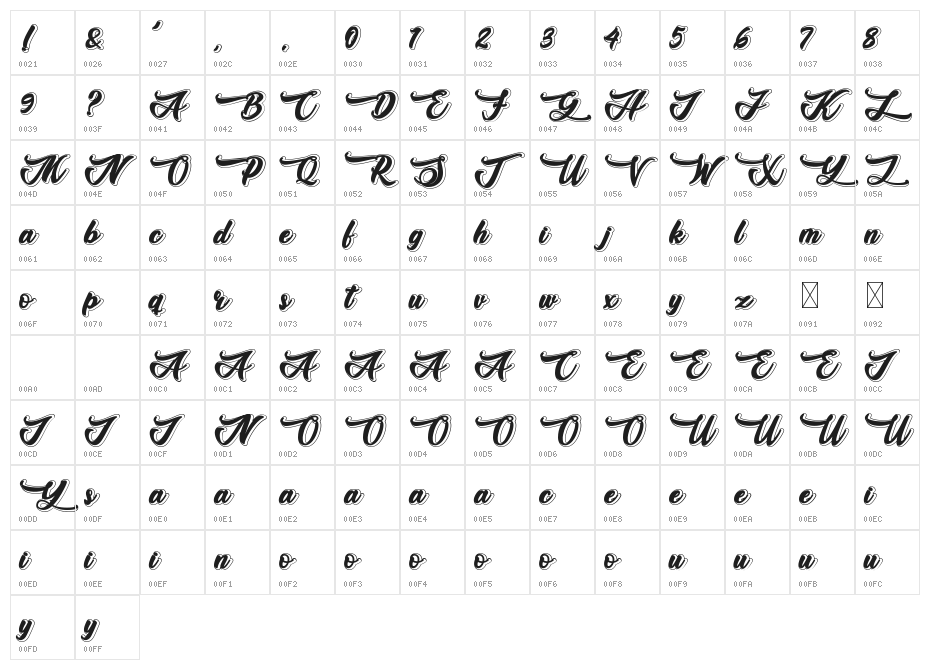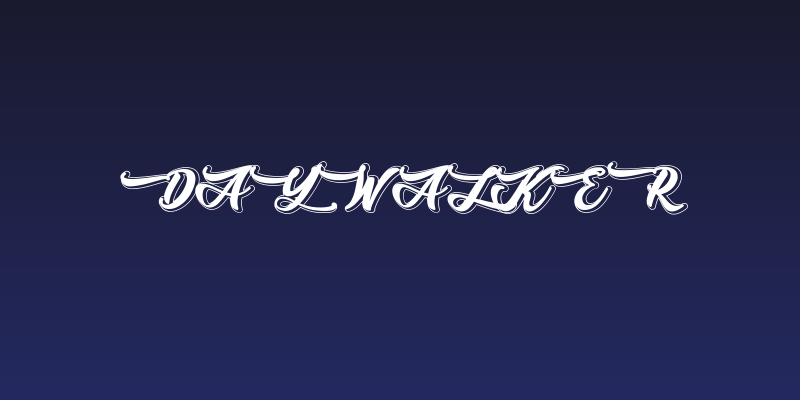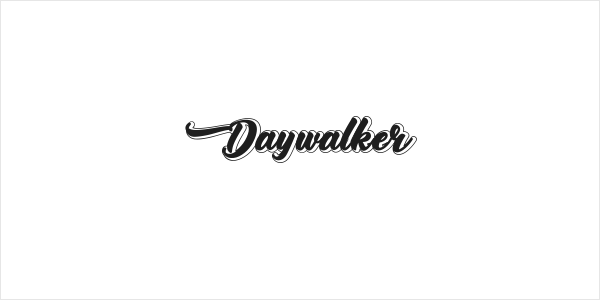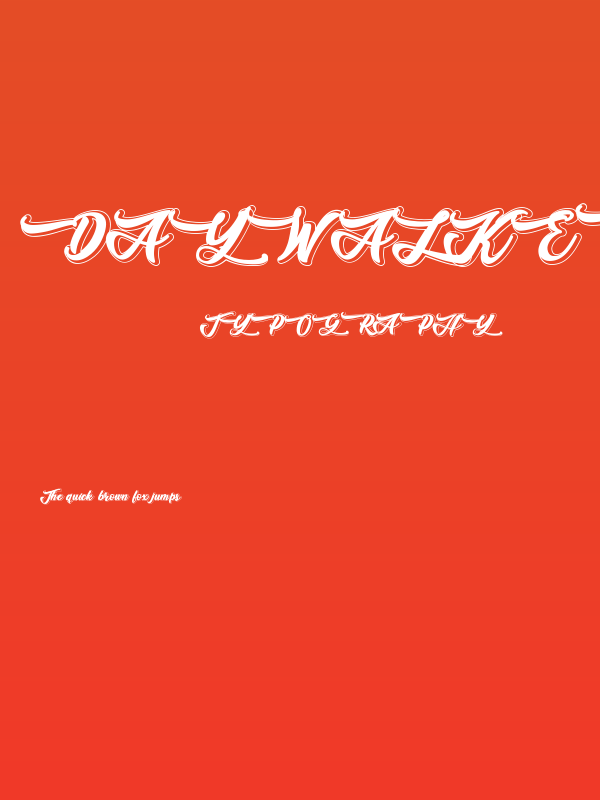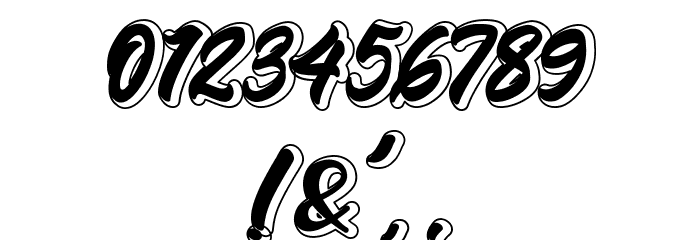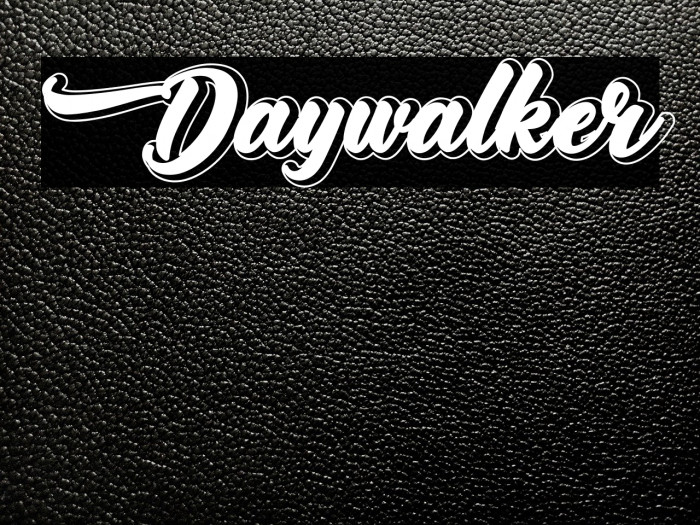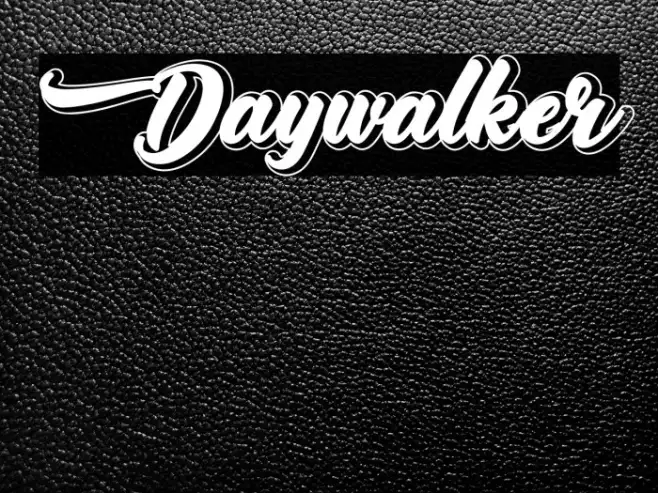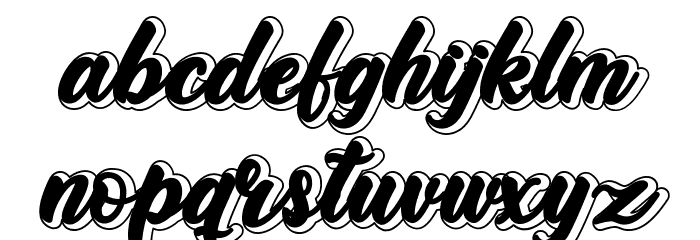
Daywalker Font
Daywalker Description
This font features a bold and dynamic script style with a strong presence. The uppercase letters are elegantly connected, creating a flowing and cohesive look. The lowercase letters maintain the same boldness, with a slight slant that adds a sense of movement and energy. The numerals are equally bold, ensuring consistency across all characters. The special characters are designed to match the overall aesthetic, making them suitable for a variety of uses. The font's thick strokes and shadow effect give it a three-dimensional appearance, enhancing its visual impact.
| Proposed Projects | Ideal for branding, logos, headlines, and posters where a strong, eye-catching font is needed. |